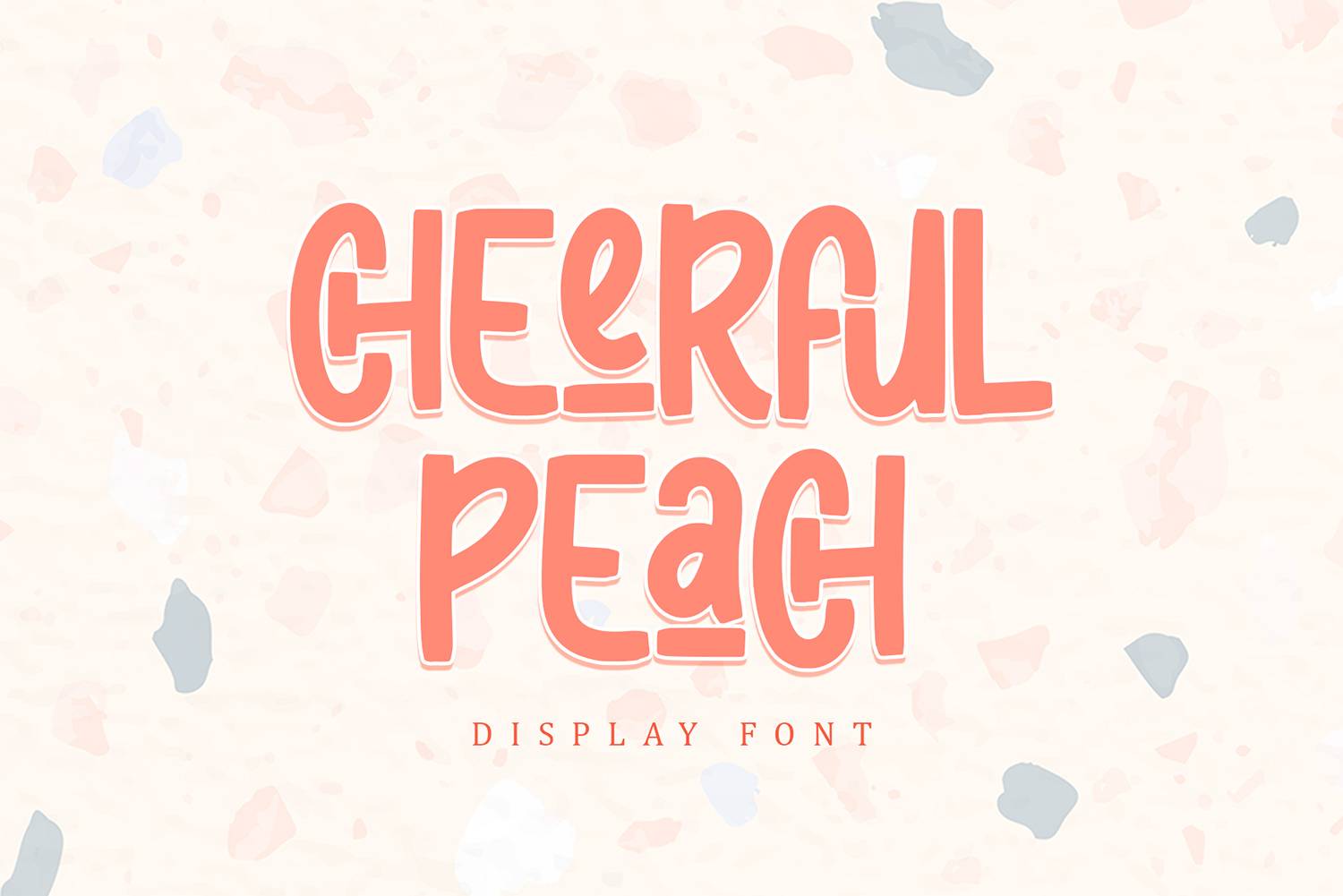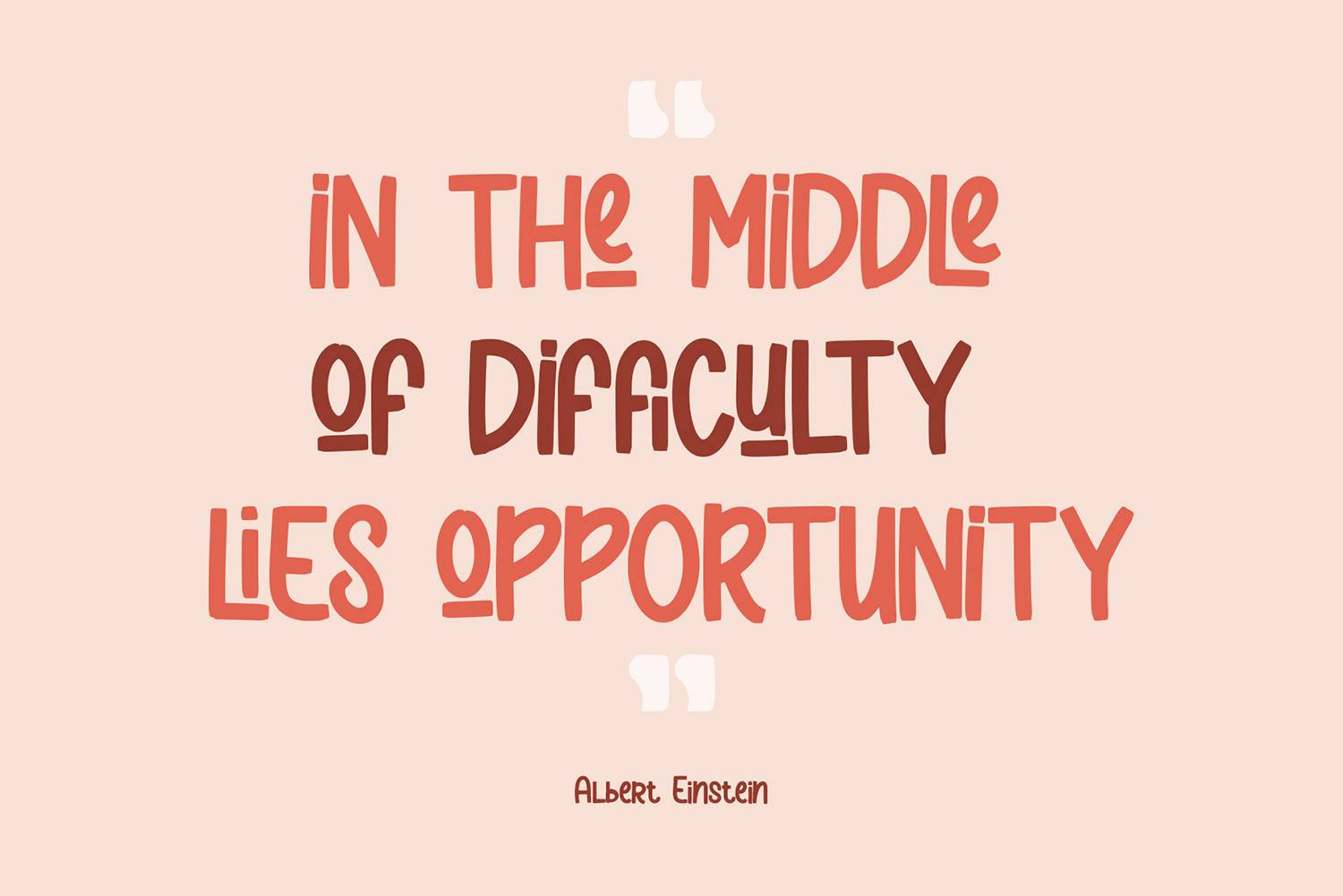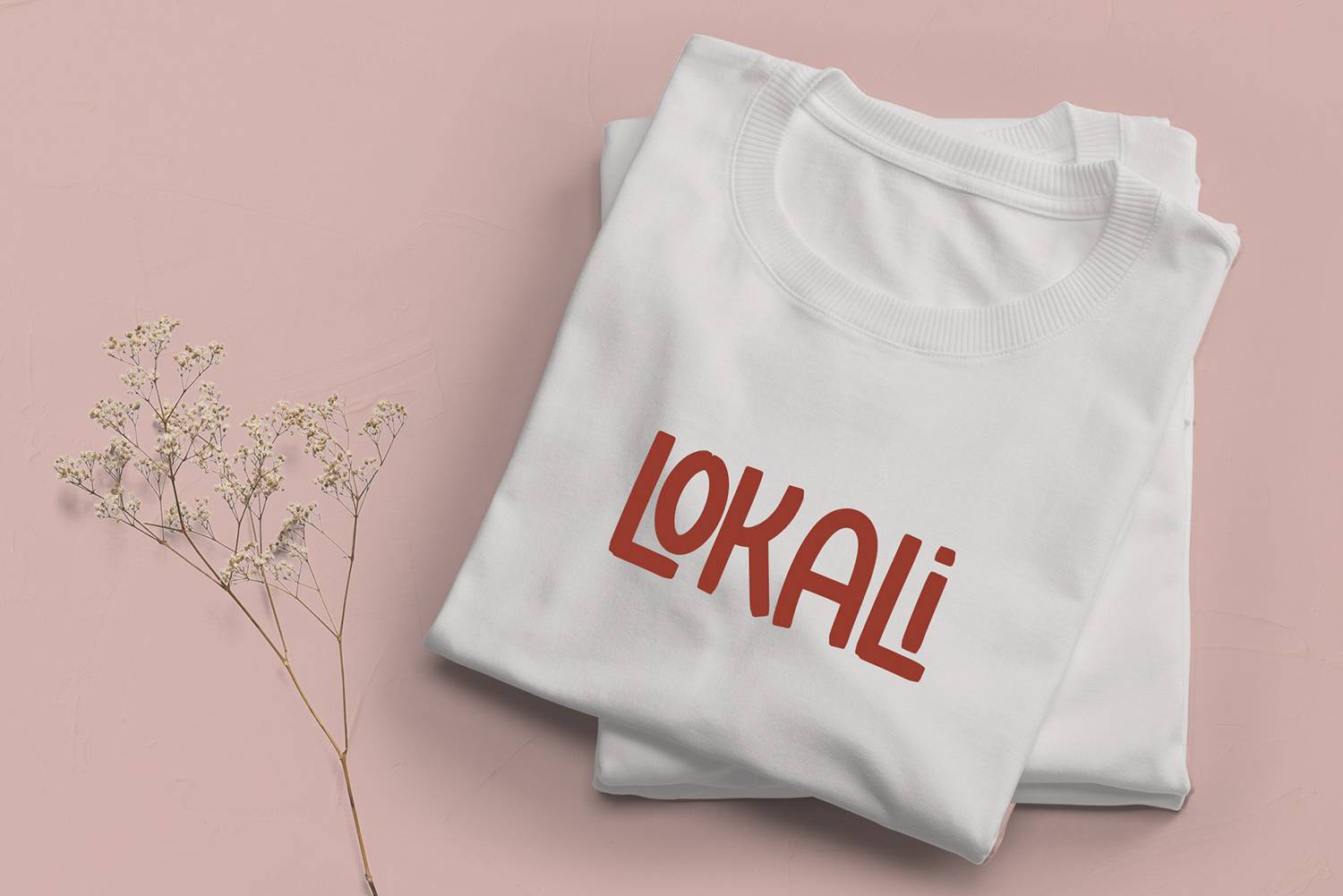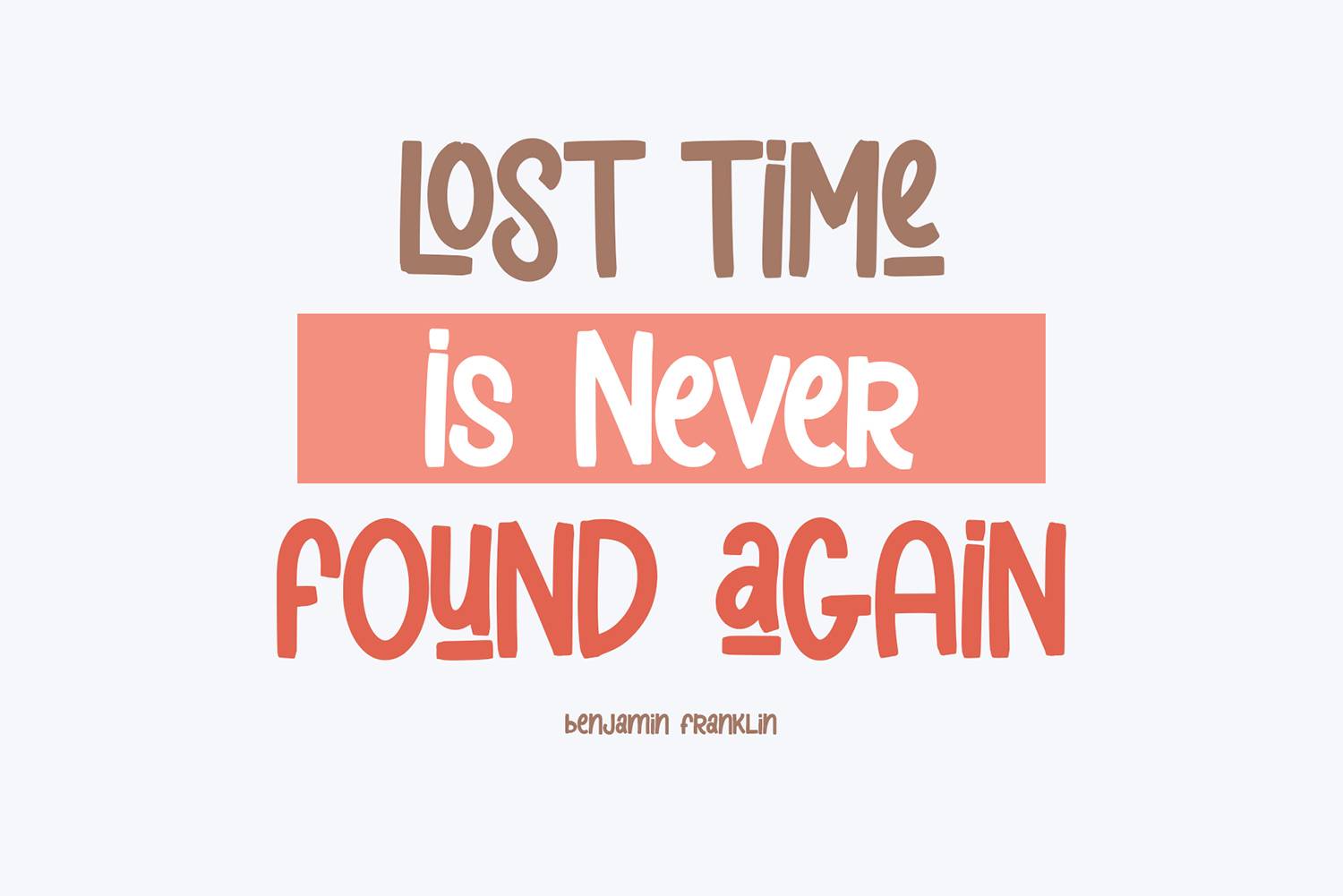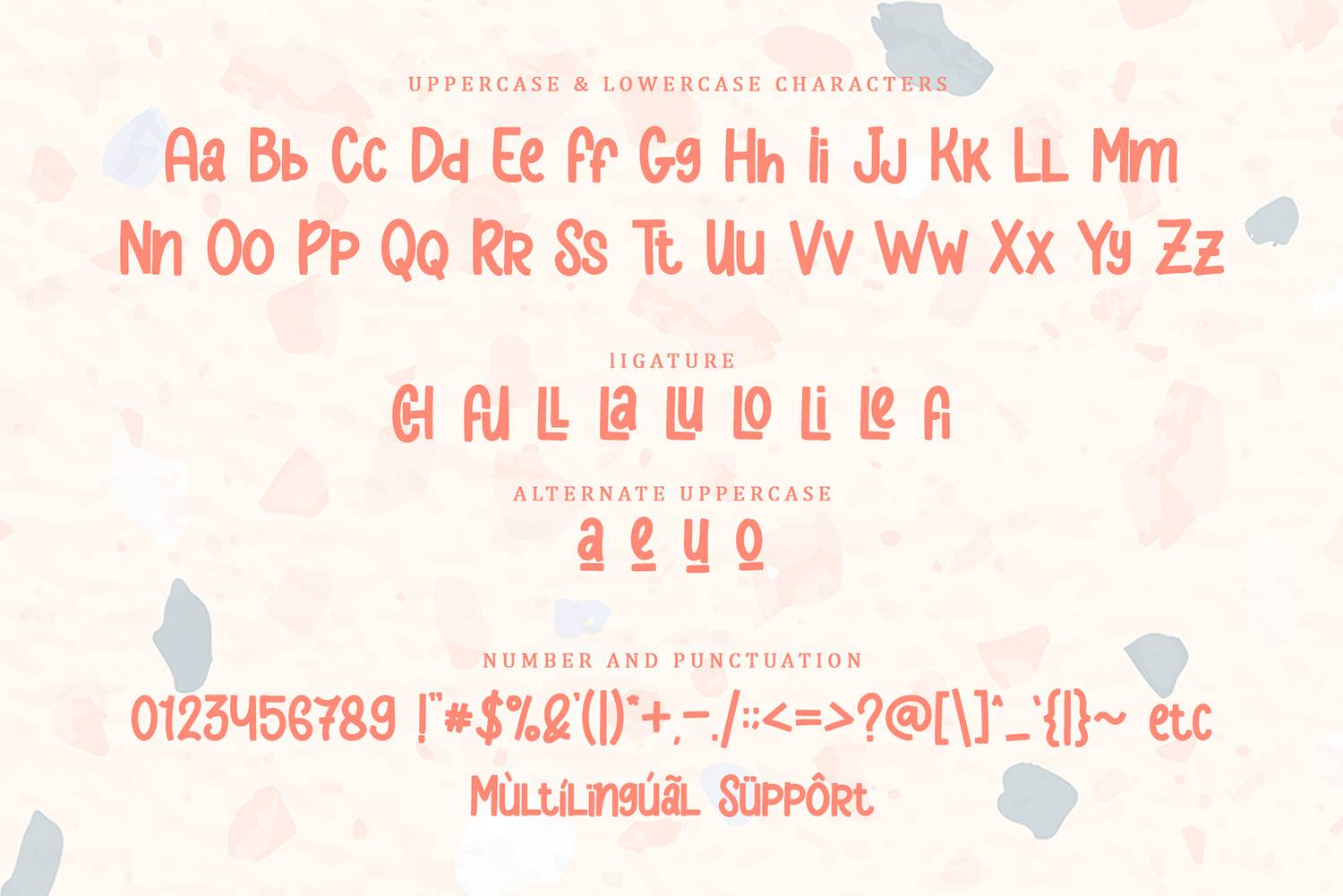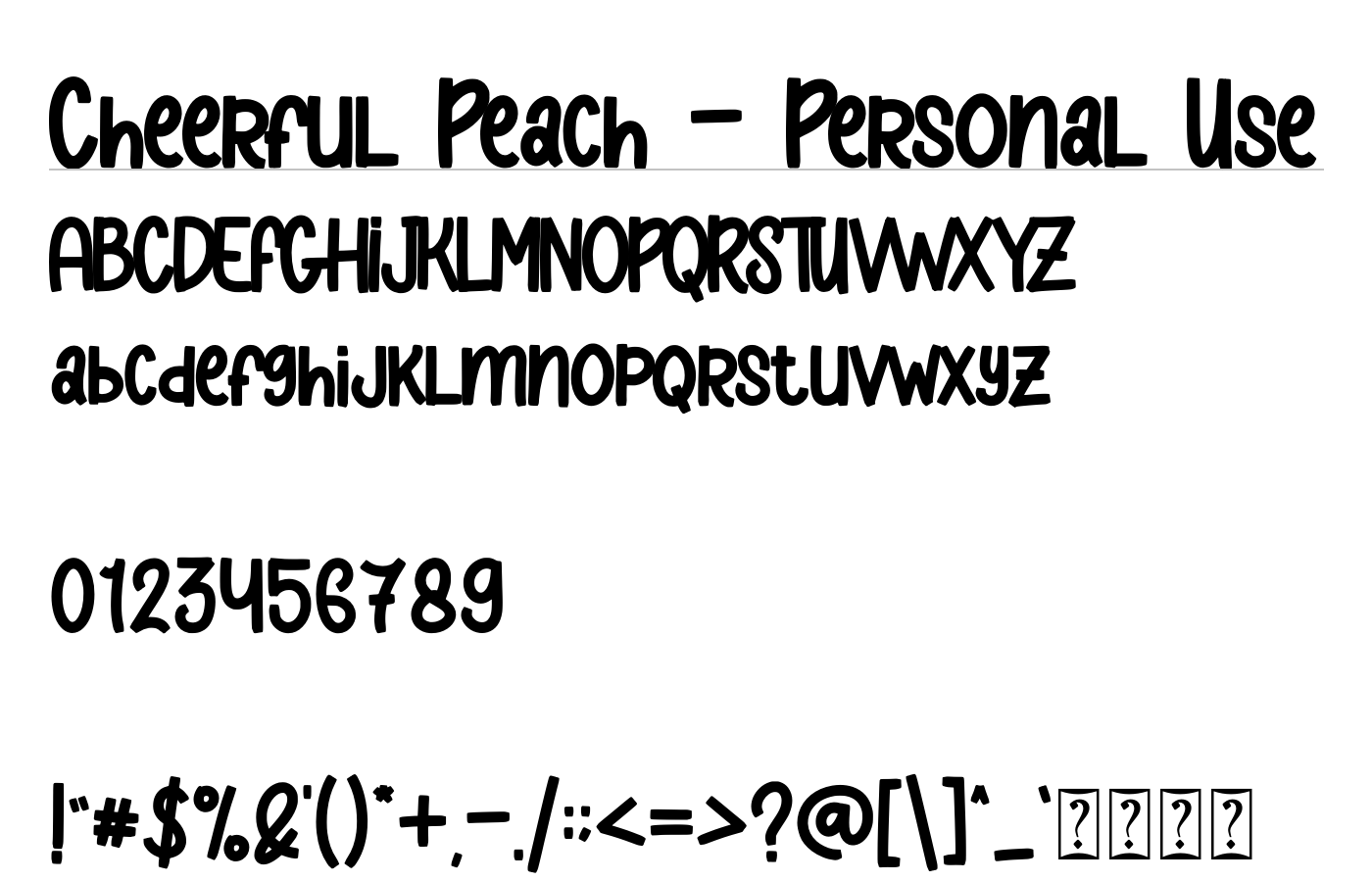
Cheerful Peach is a playful and casual sans serif font with a hand-drawn, friendly feel. Its rounded, slightly irregular letterforms and moderate weight give it a warm, approachable personality, making it perfect for fun, informal designs like children’s books, casual branding, or whimsical headlines. This font works well where a lively and inviting tone is needed, adding charm and character without sacrificing readability.
Cheerful Peach Font
About Cheerful Peach Font